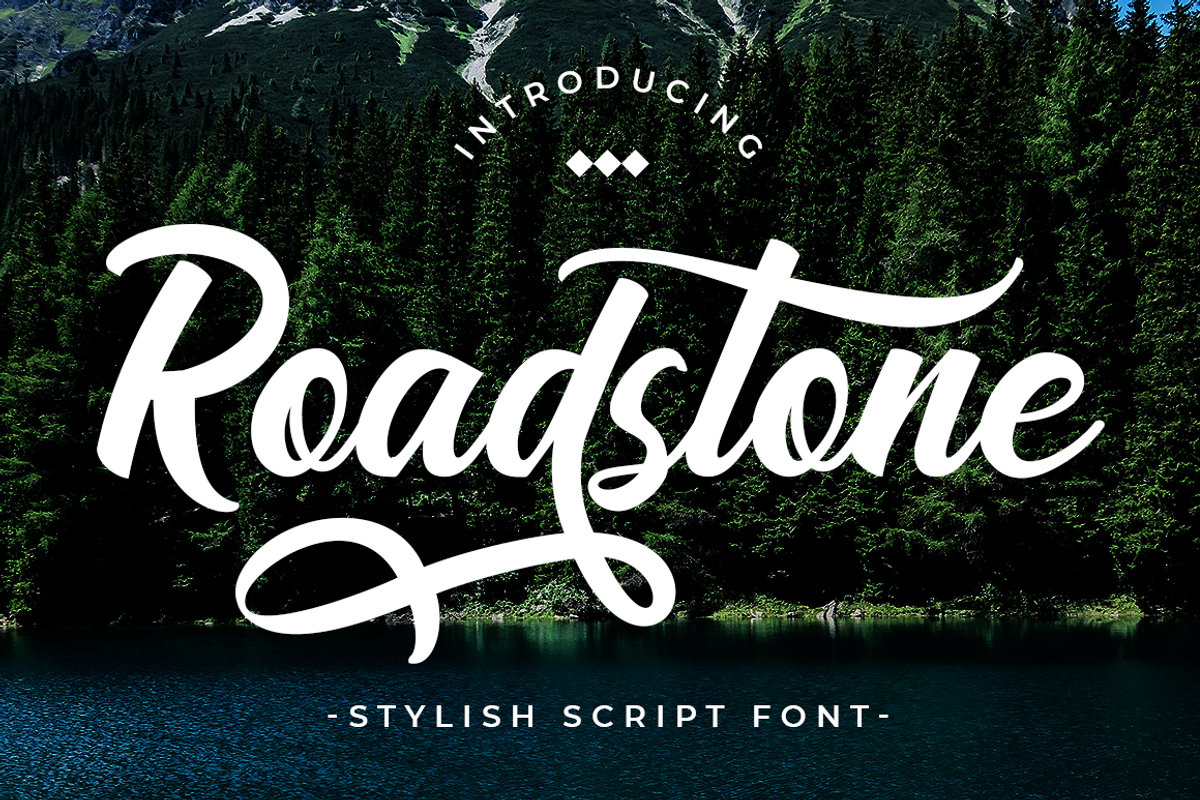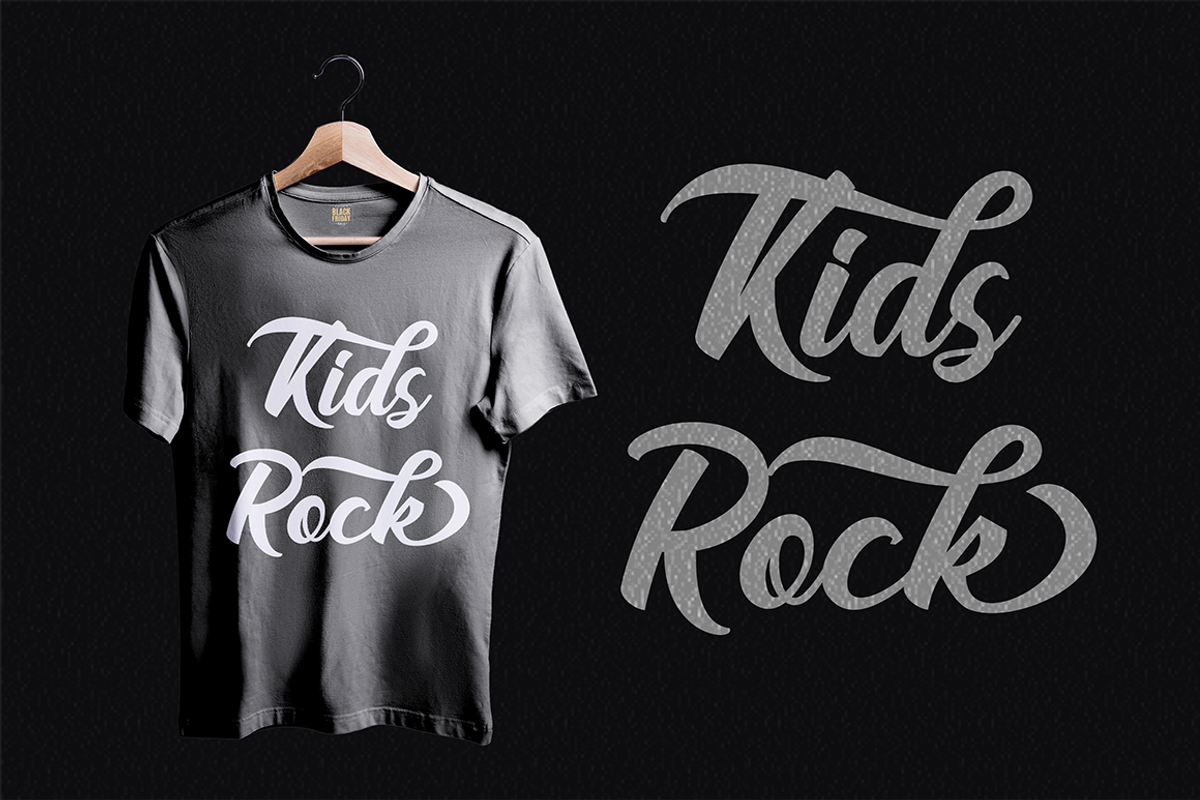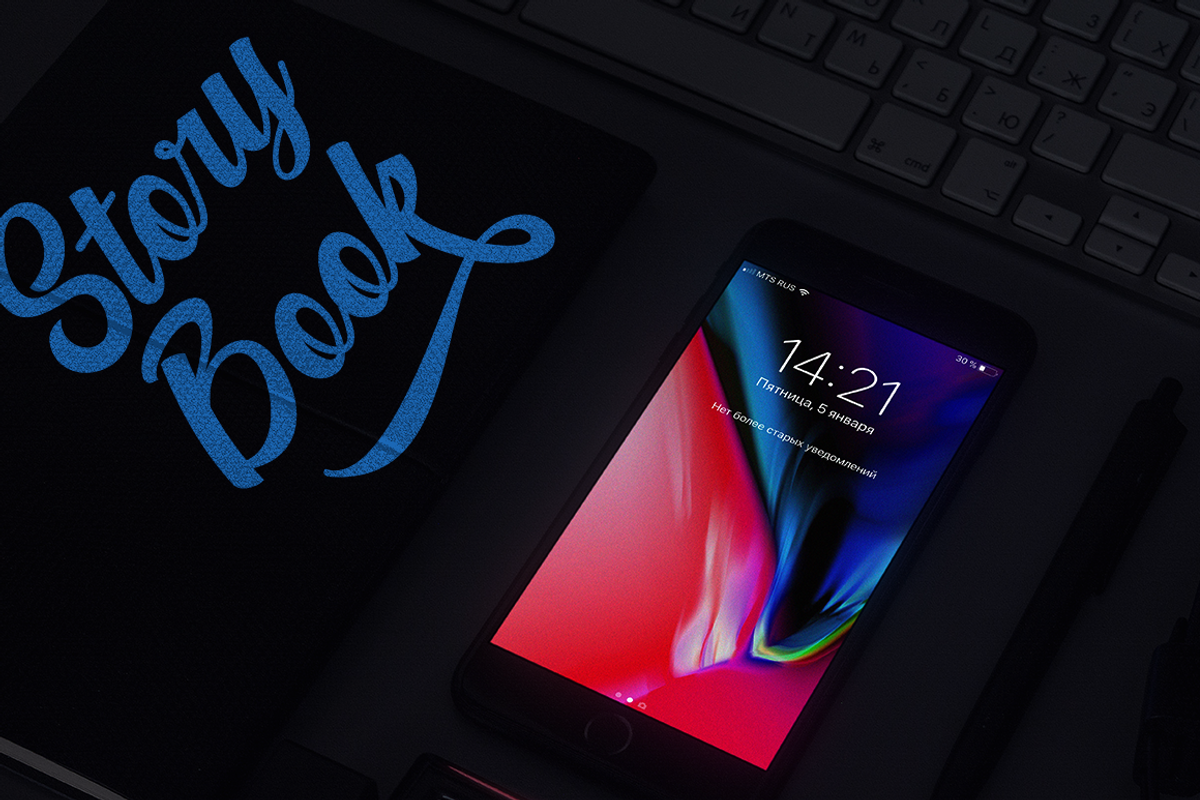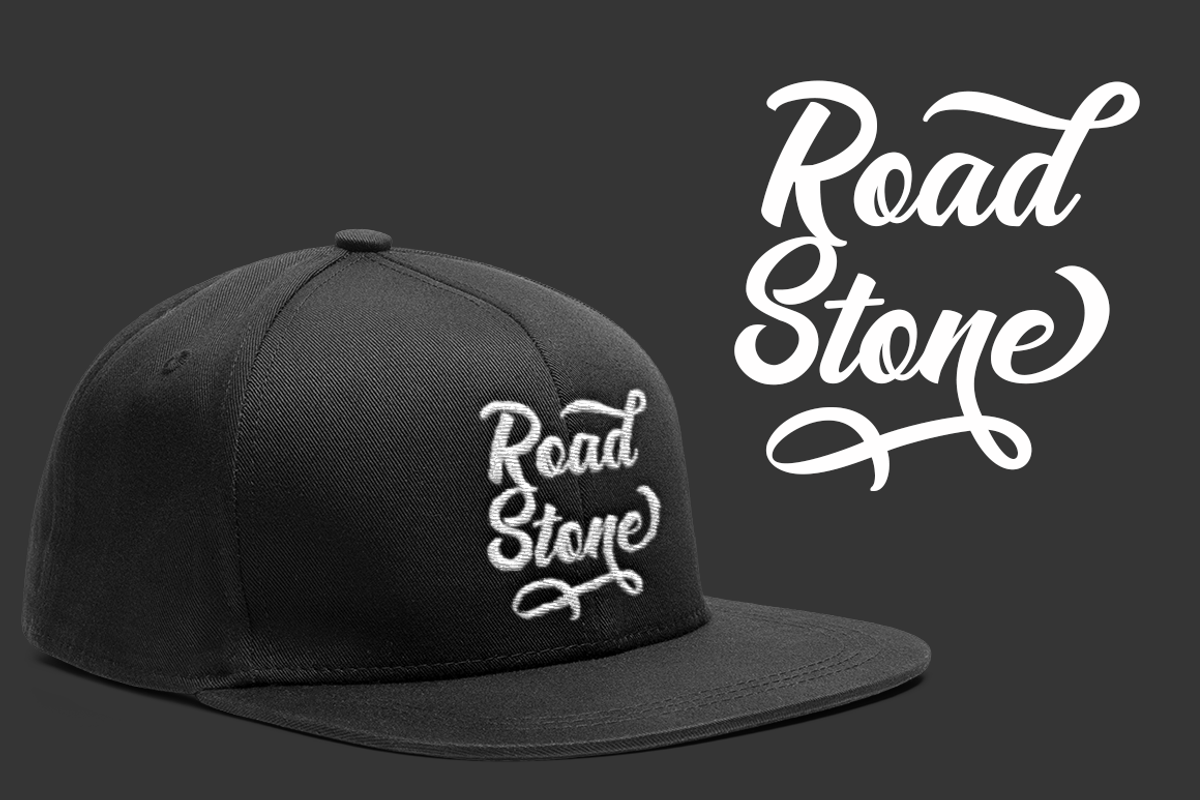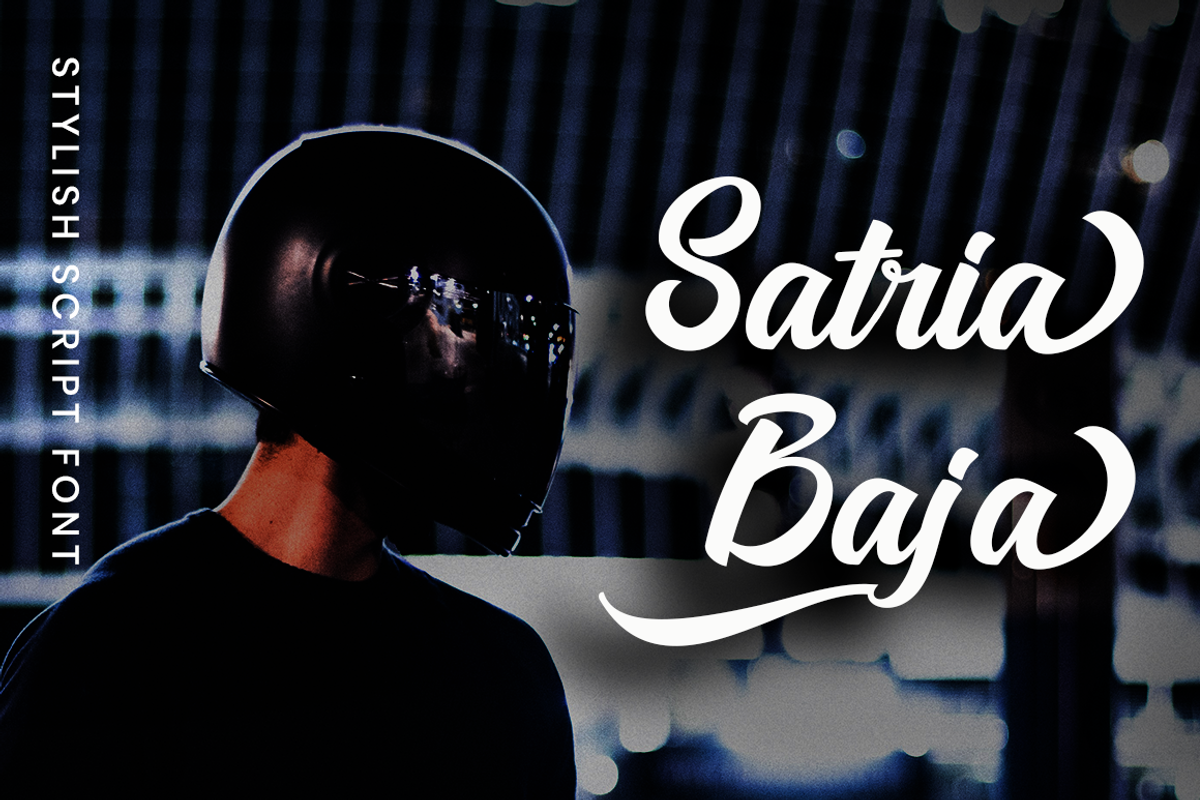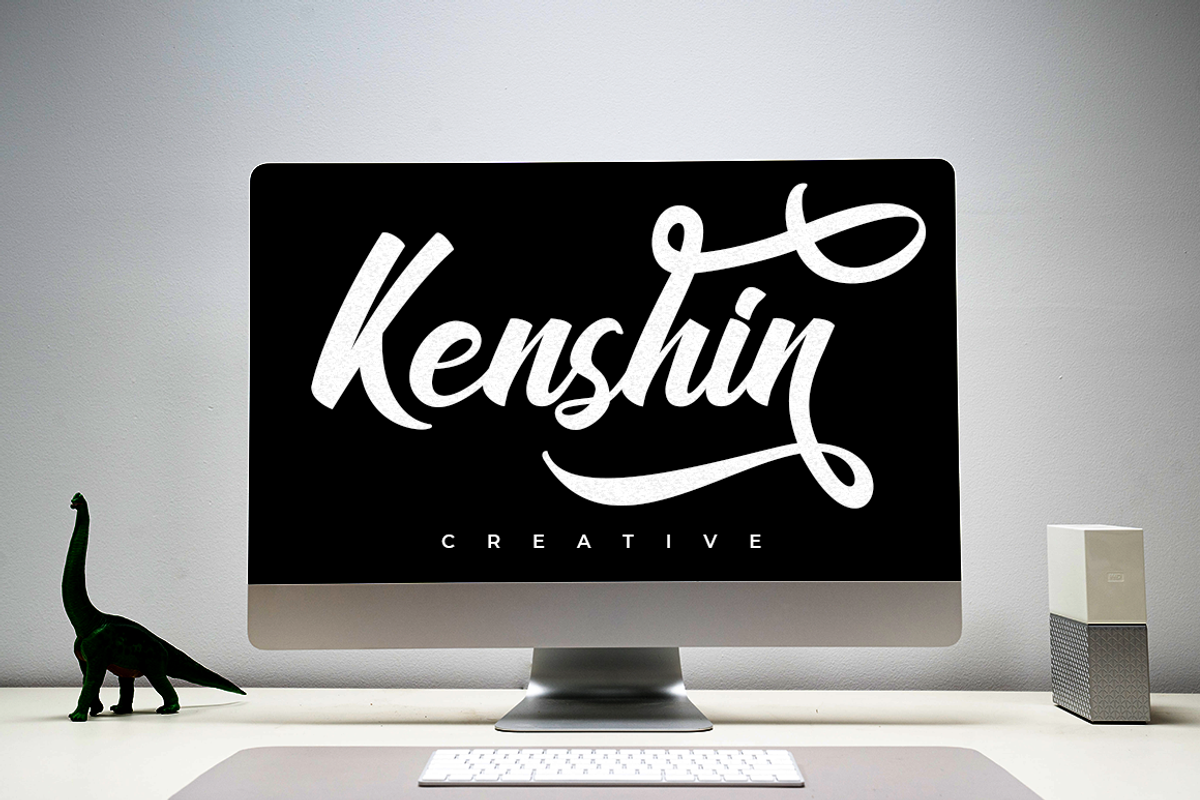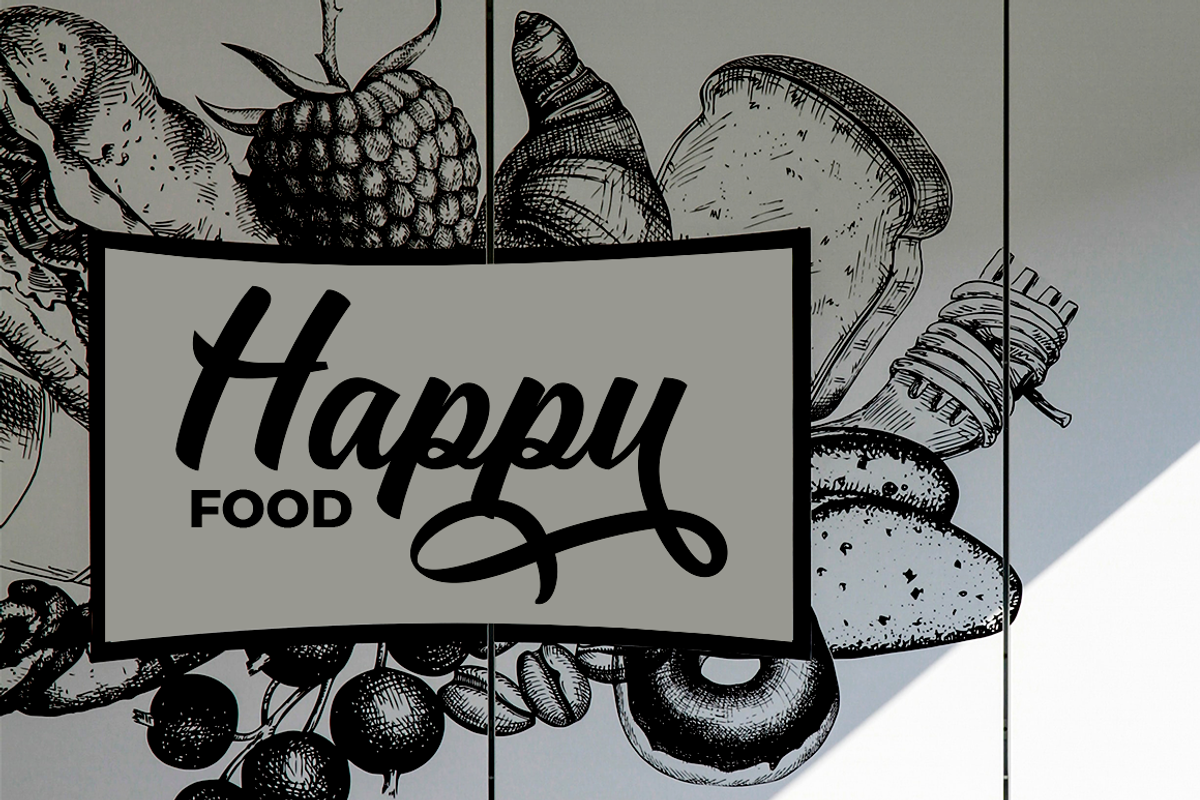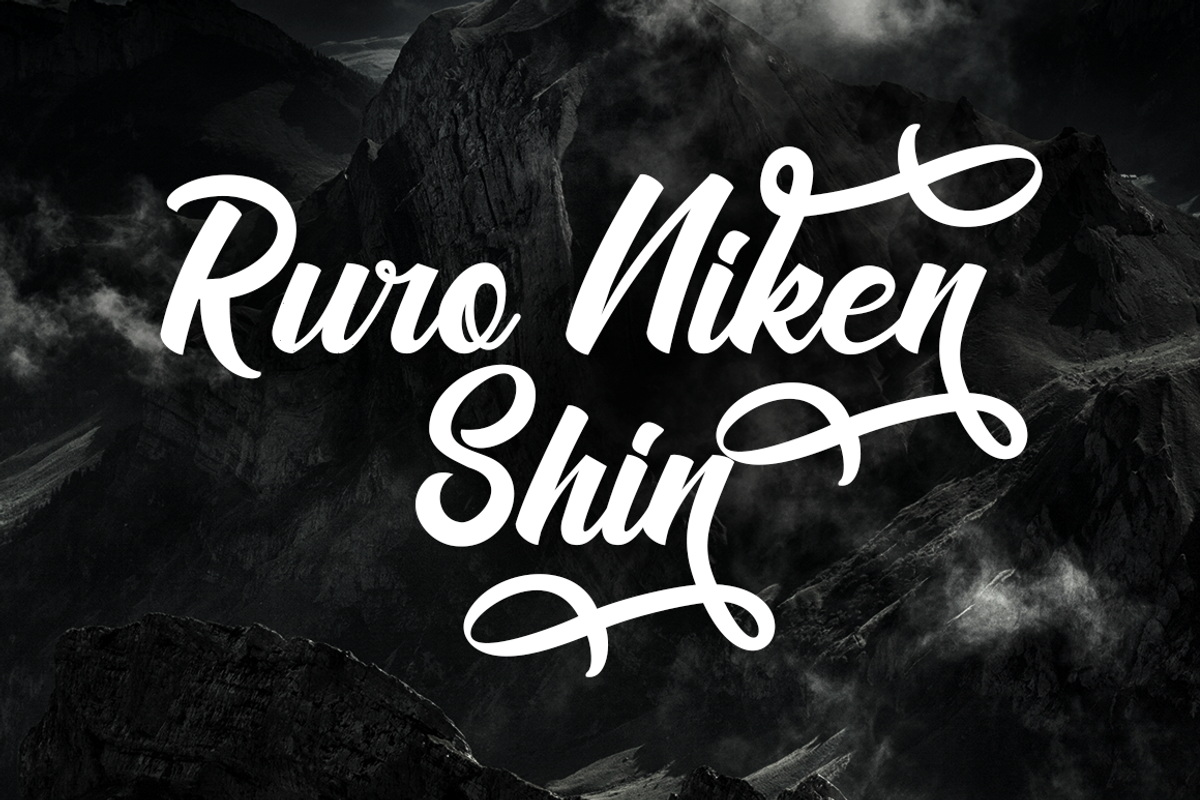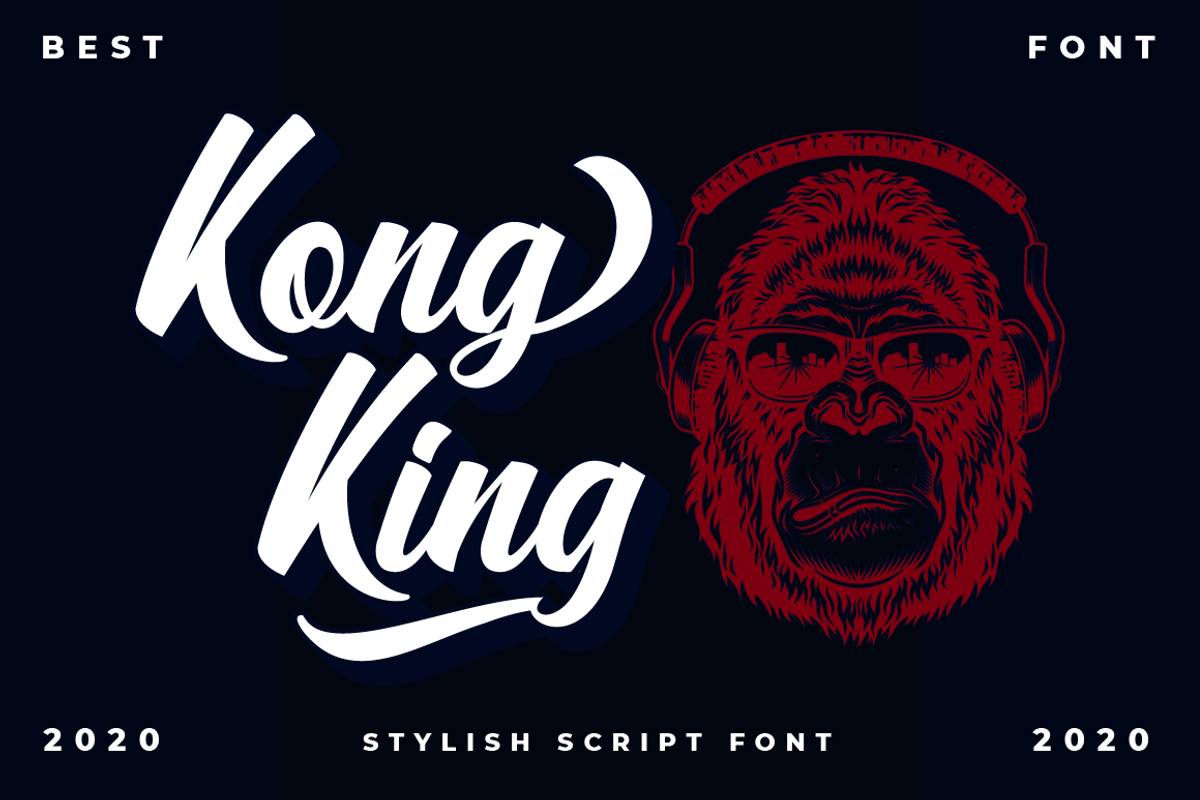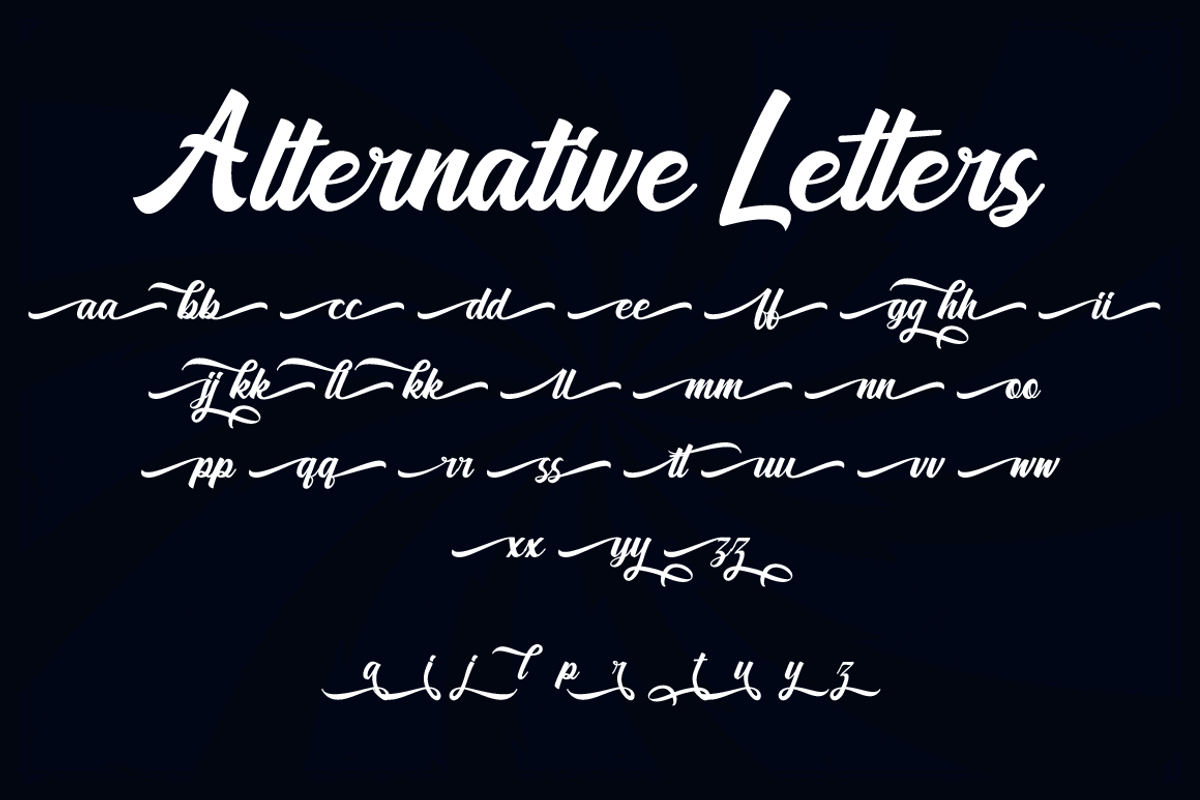
Road Stone - Apparel Style Font
Introducing ... Roadstone
Roadstone is a modern stylish script font that inspired by streetwear and combination hand lettering style. Bold in every character, making this font the perfect fit for your apparel project.
Also ideal for logos, badge, label, apparel, club, event, handwritten quotes, product packaging, header, poster, merchandise, social media & greeting cards.
Roadstone come with opentype feature like a lot of alternates. Its help you to make beautiful lettering. This font is also support multi language (áâàäåãæçéêèëíîìïıðñóôòöõøœšúûùüýÿžþÁÂÀÄÅÃÆÇÉÊÈËÍÎÌÏÐÑÓÔÒÖÕØŒŠÚÛÙÜÝŸŽÞ)
Comes with feature :
- Number, Punctuation And Symbols
- Multilanguage Support.